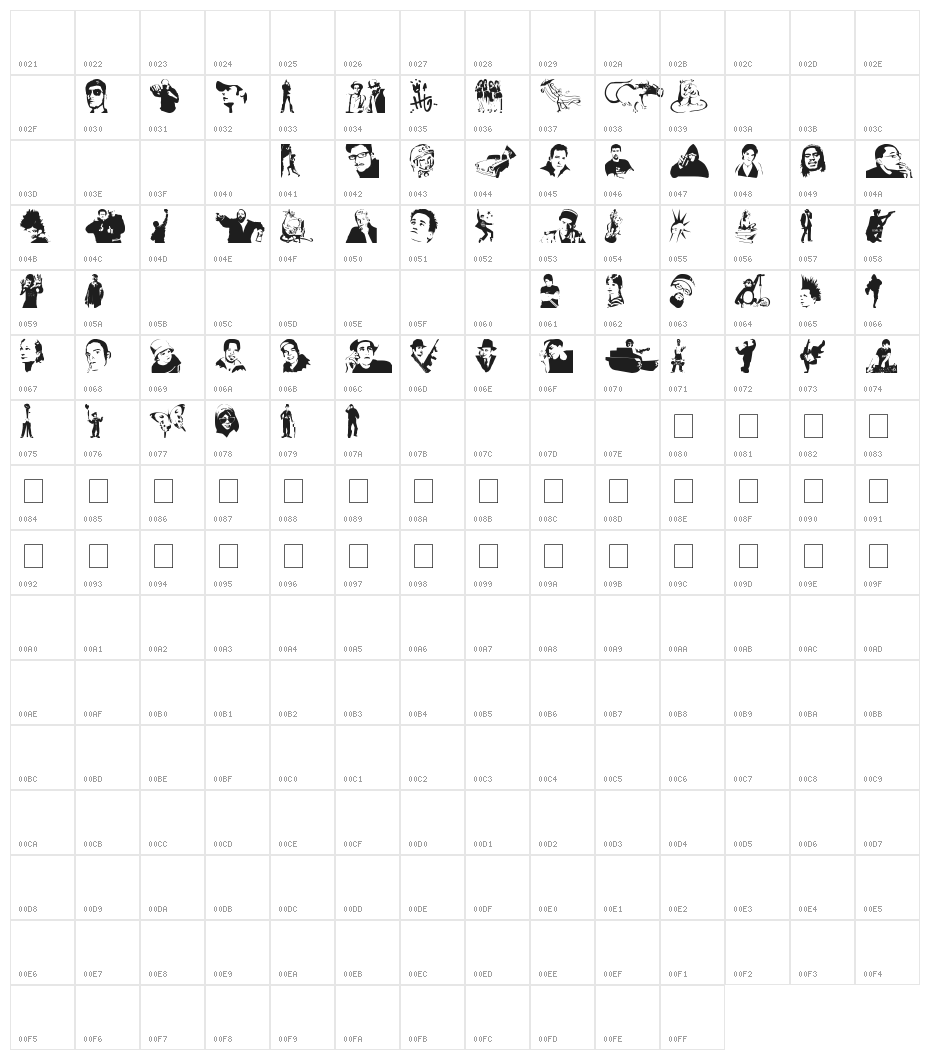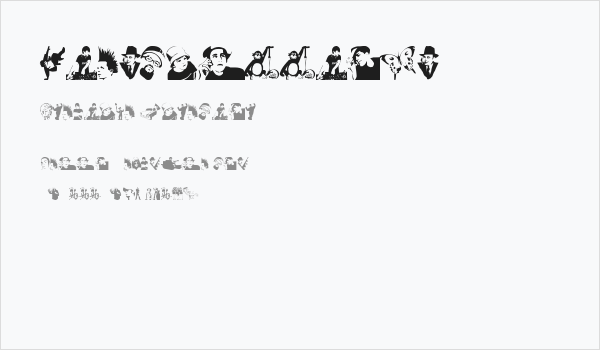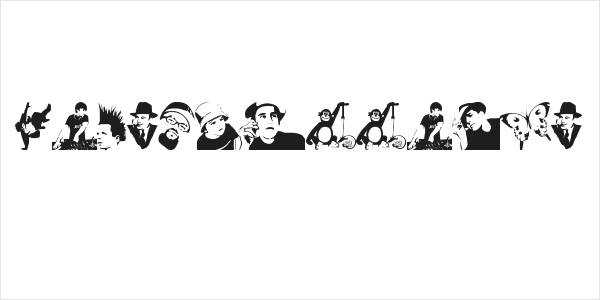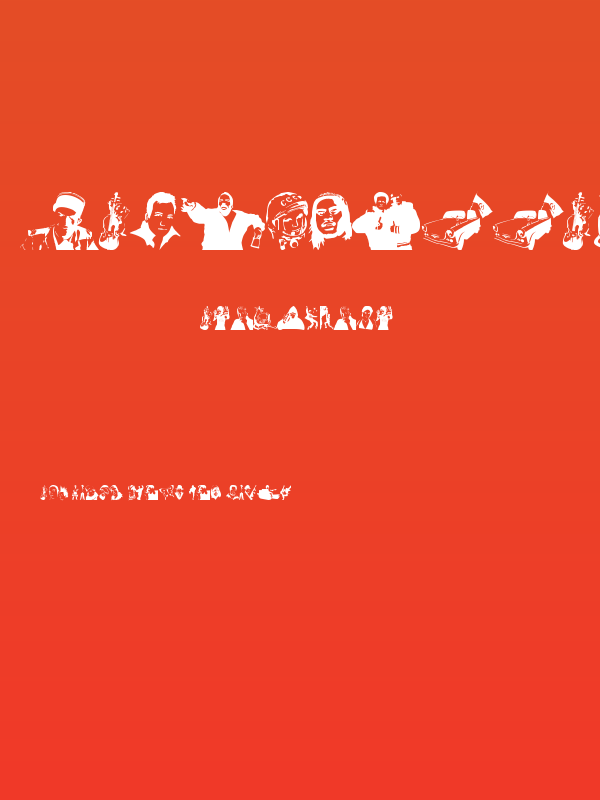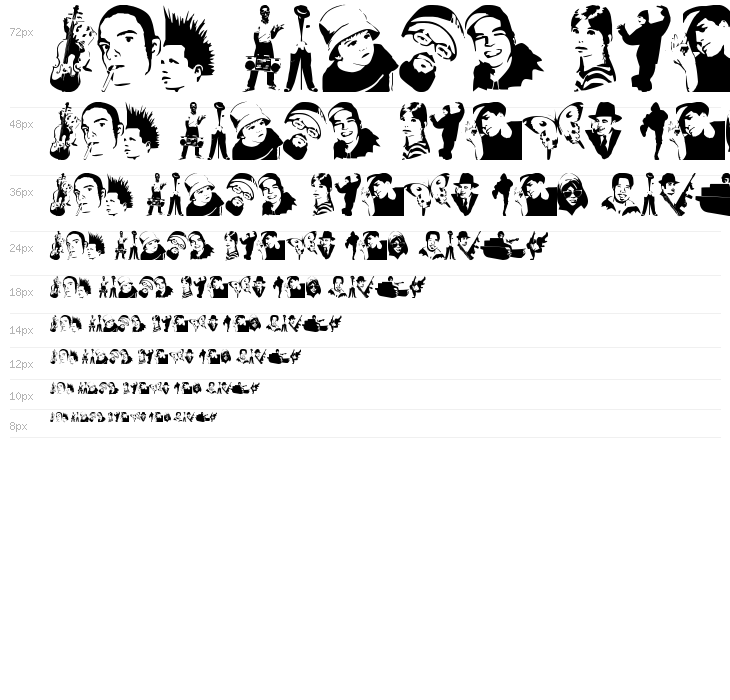
stencilddtown Font
stencilddtown Description
A highly decorative, stencil-style display font composed of detailed black-and-white illustrations of people, animals, and objects in place of traditional letterforms. Each character is represented by a unique, bold stencil graphic, making the set visually striking and unconventional.
| Overall Style | Decorative, Urban, Stencil |
| Use Case | Logos, Posters, Headlines, Artistic projects |
| Proposed Projects | Street art posters, music album covers, urban branding, youth event flyers, creative editorial spreads. |